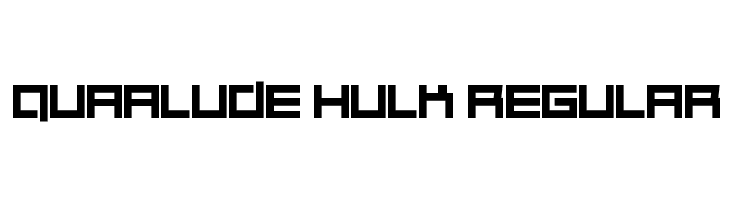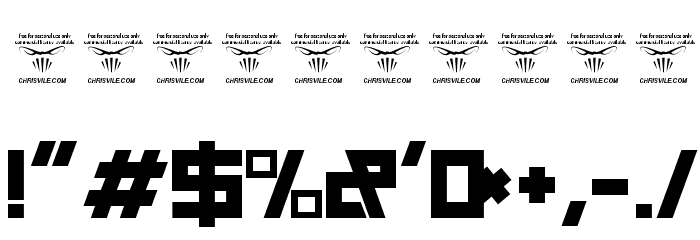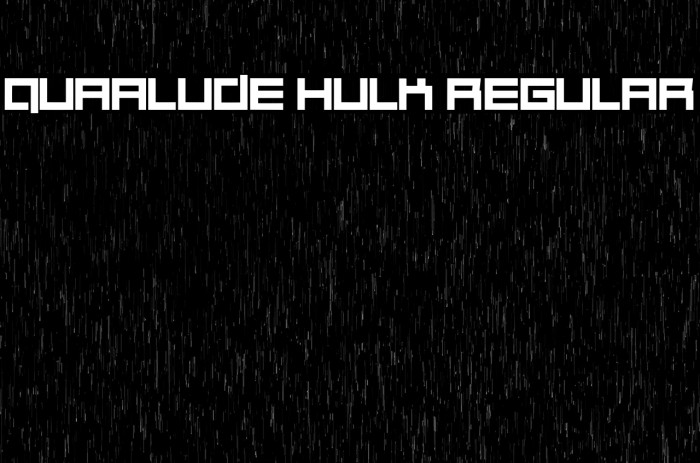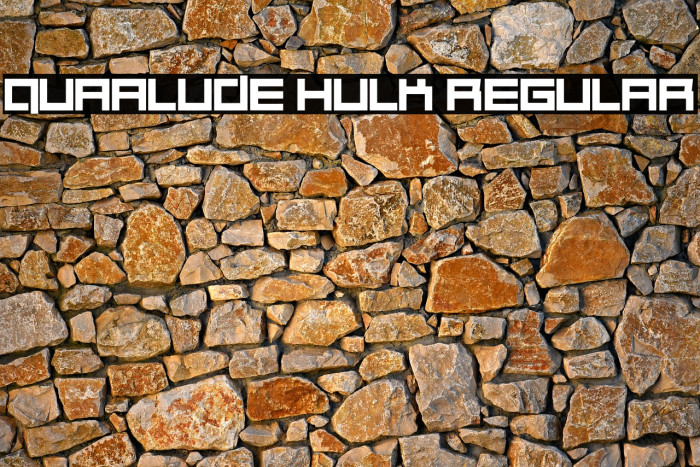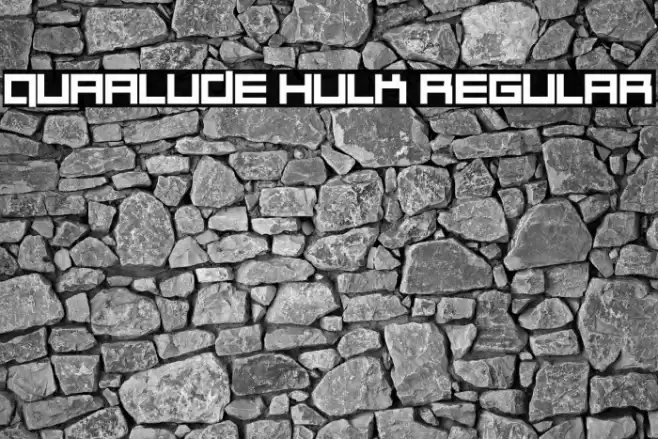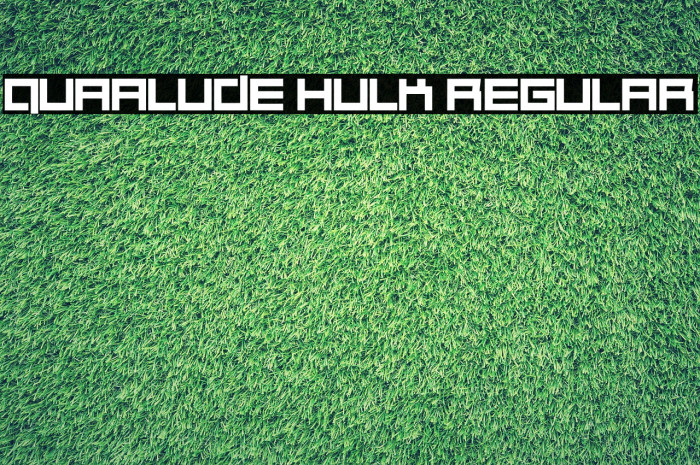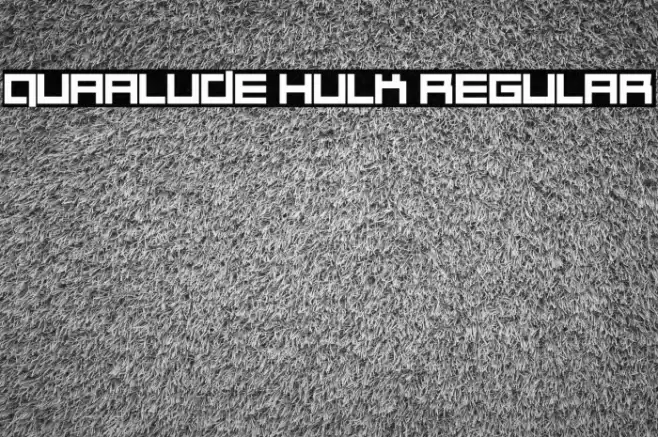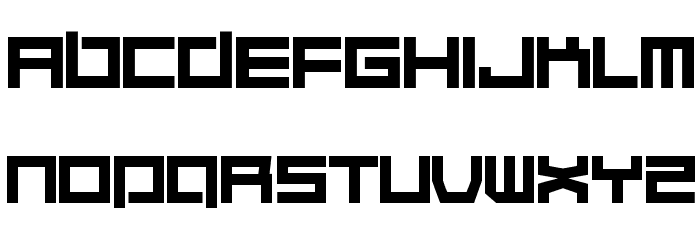
Quaalude hulk Regular Font
Quaalude hulk Regular Description
This font exhibits a bold and geometric design, characterized by its blocky and angular letterforms. The uppercase and lowercase letters maintain a consistent height, contributing to a uniform appearance. The style is reminiscent of digital or futuristic themes, with sharp edges and a strong presence. The numerals and special characters follow the same design principles, ensuring cohesion across all glyphs. The overall aesthetic is striking and modern, making it suitable for projects that require a bold statement.
| Proposed Projects | Ideal for video game titles, tech branding, posters, and digital media projects. |